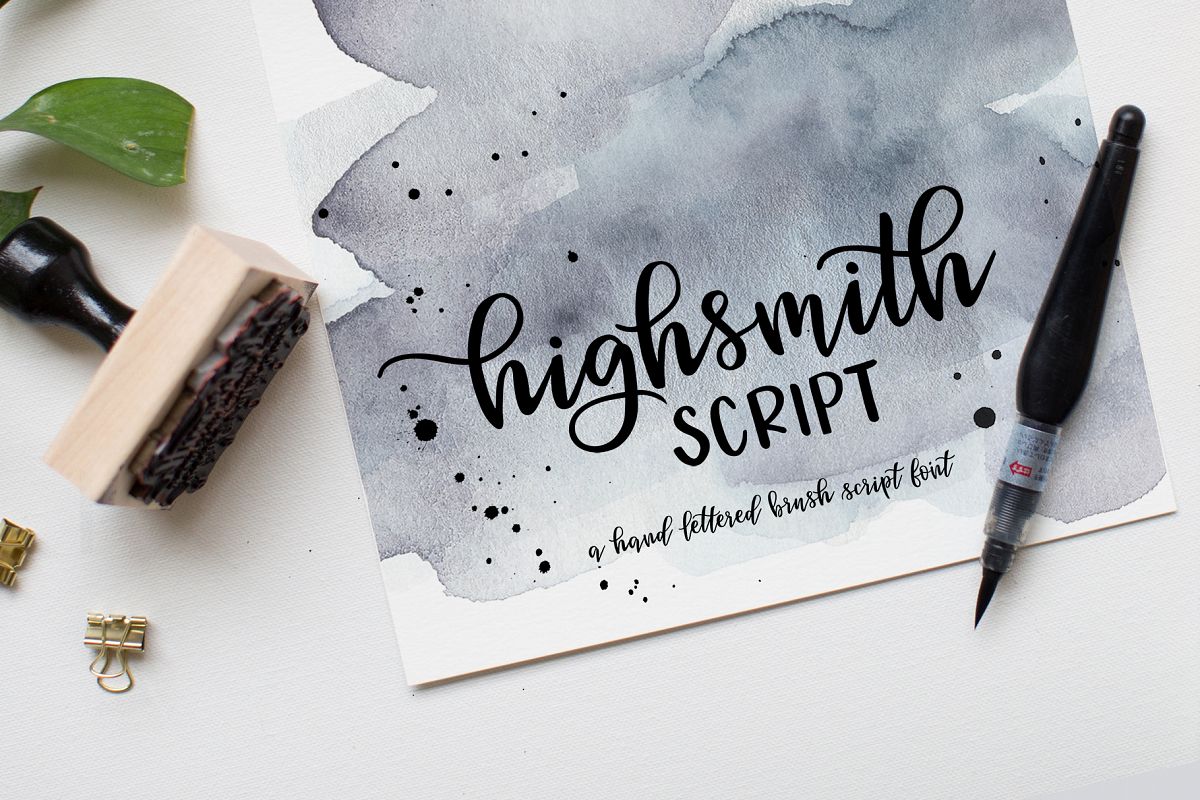
Highsmith Script
Hand-lettered with style, Highsmith Script is a must have for all your design needs. Perfect for greeting cards, branding, stationery design, social media, packaging, magazine layouts, prints and more!
Utilize all caps for a completely alternate style, or mix and match lowercase script + all caps for creative designs.
Highsmith Script has a variety of unique, coded features to create compelling, handmade outcomes: 4 stylistic alternates, 5 initial characters, 4 end characters, 1 discretionary ligature and 25 standard ligatures.
Highsmith Script